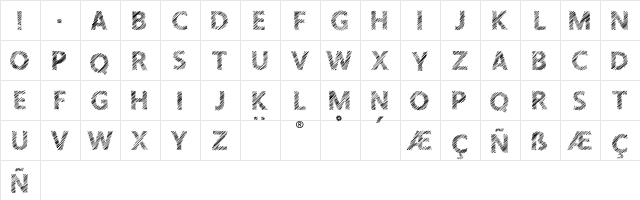
Crosshatcher Regular
Design Context for Crosshatcher Typeface
Crosshatcher is a composed and adaptable typeface that performs quietly and consistently across a wide range of design contexts.